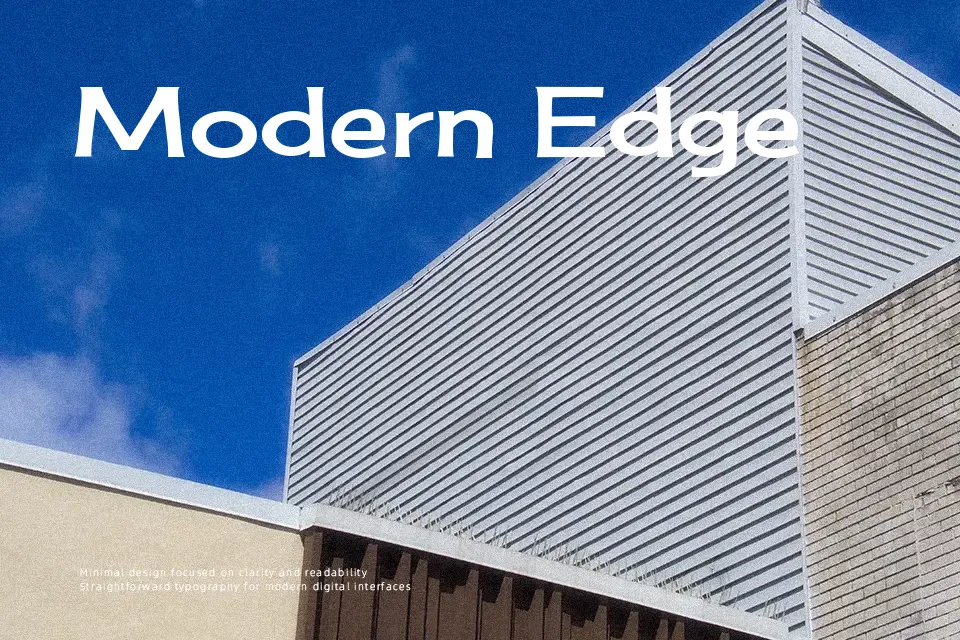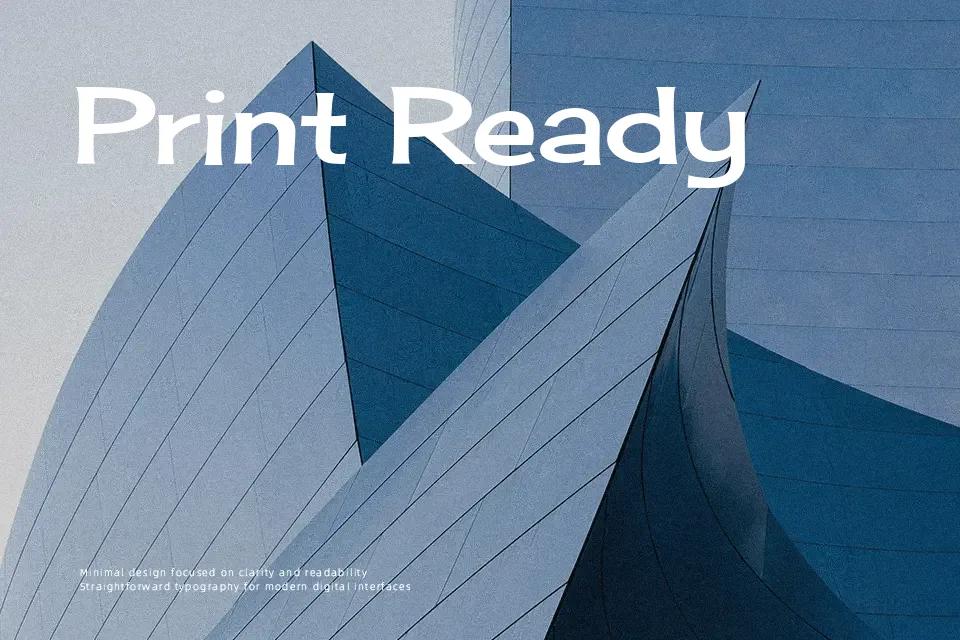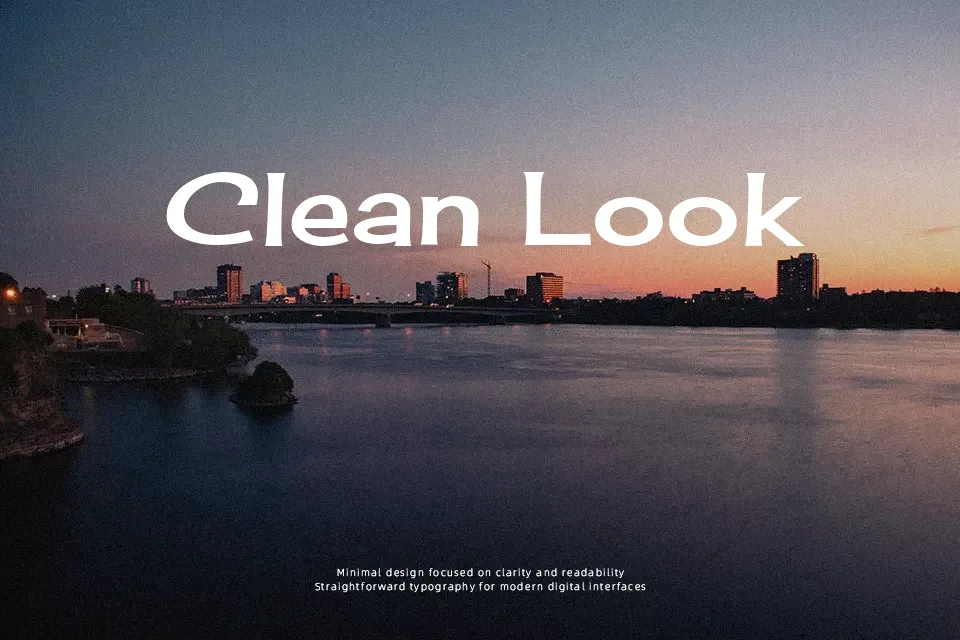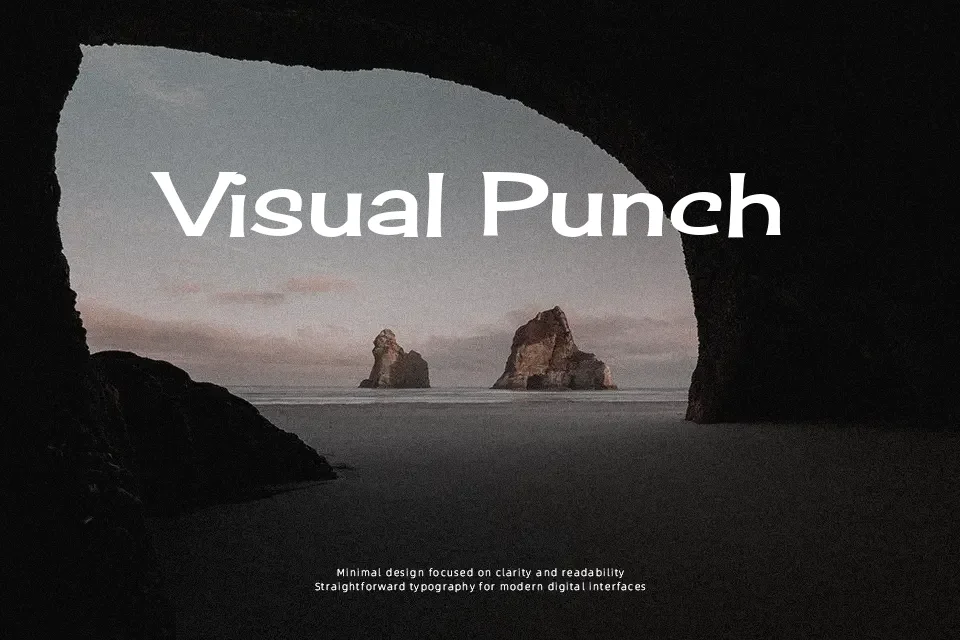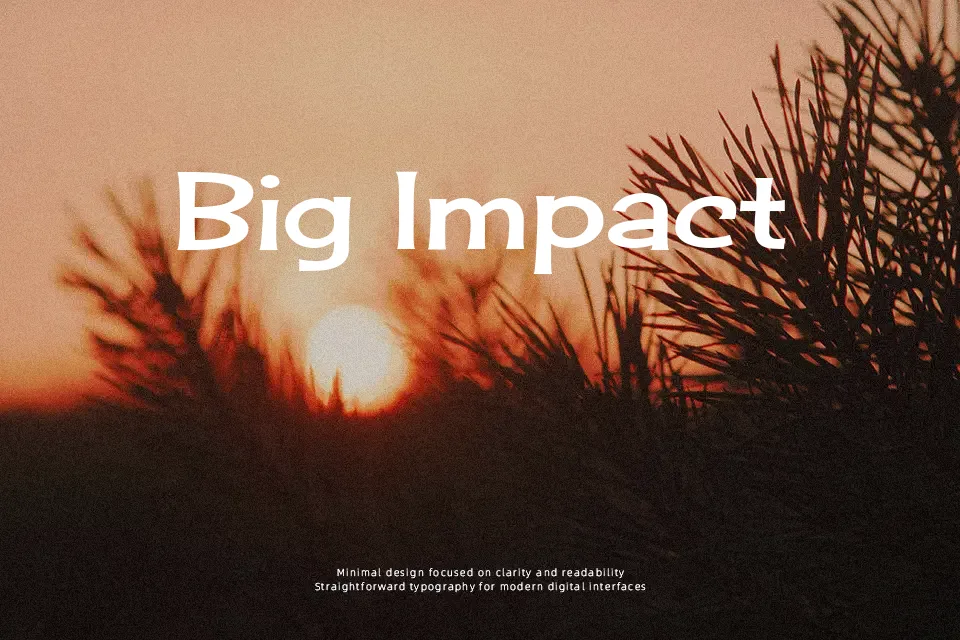
Cherry Cream Soda Font
Cherry Cream Soda leans hard into mid-century American sign-painting culture — expanded letterforms, thick uniform strokes, and generously rounded terminals give it that bubbly, soda-fountain personality. The extreme width commands attention at large display sizes, and the consistent stroke weight keeps readability surprisingly intact at a glance. It fits naturally on retro diner menus, youth product labels, soda brand packaging, and summer event posters. That said, the wide proportions become a liability in tight layout spaces or multi-line settings. It also struggles to carry any formal or corporate tone — the nostalgia is baked in too deep. Think of it as a jukebox in font form: it fills the room with character, but you wouldn’t use it for background music.
retro diner and soda brand packaging,
kids’ product labels and event posters,
vintage-style headline treatments,
summer or fair-themed social media graphics
multi-line body copy,
tight or narrow layout compositions,
corporate and professional documents
Perfect for branding, headline, and kids, with a friendly and cartoon style.